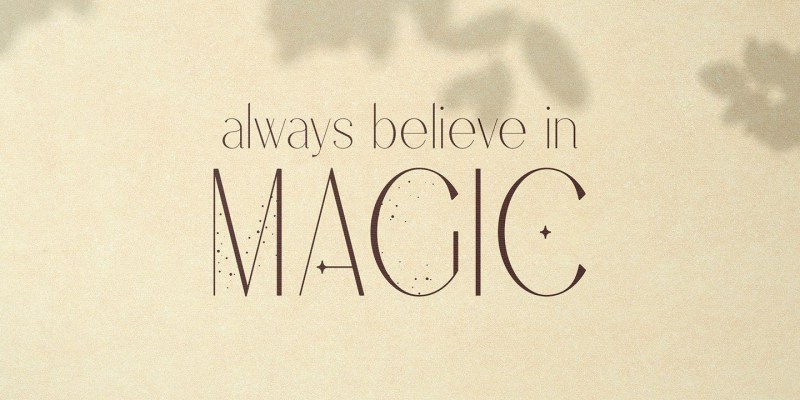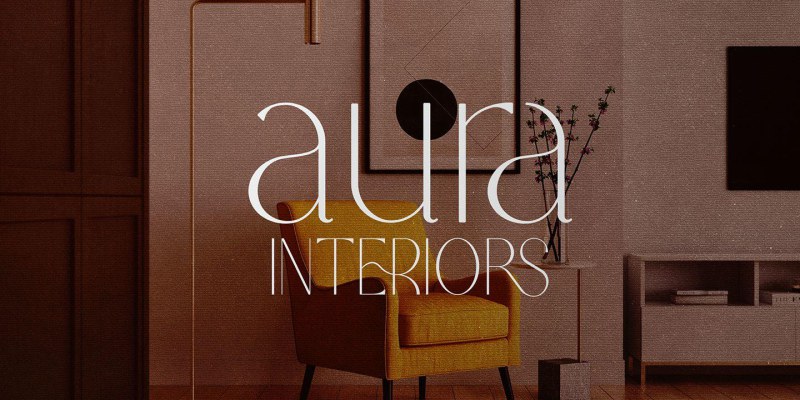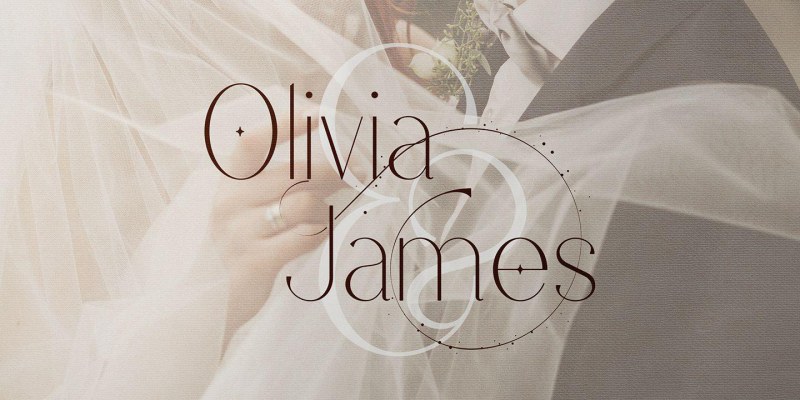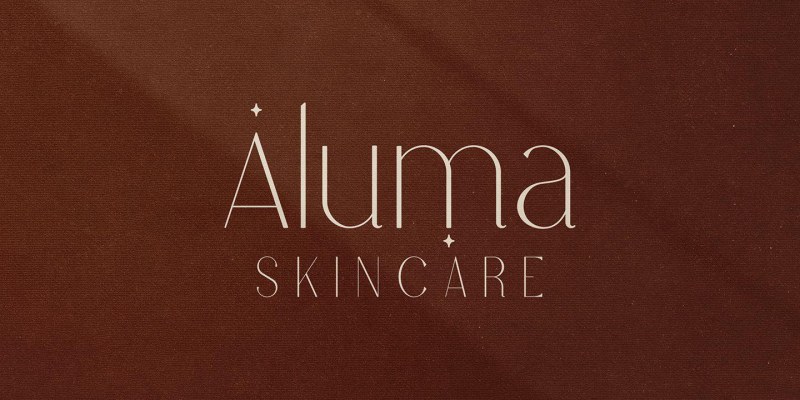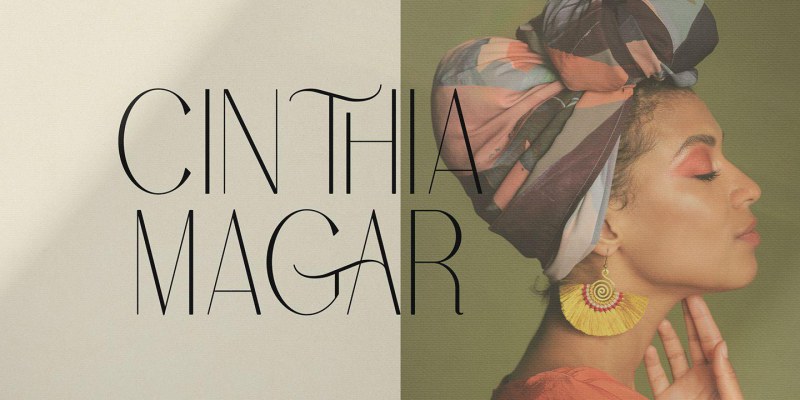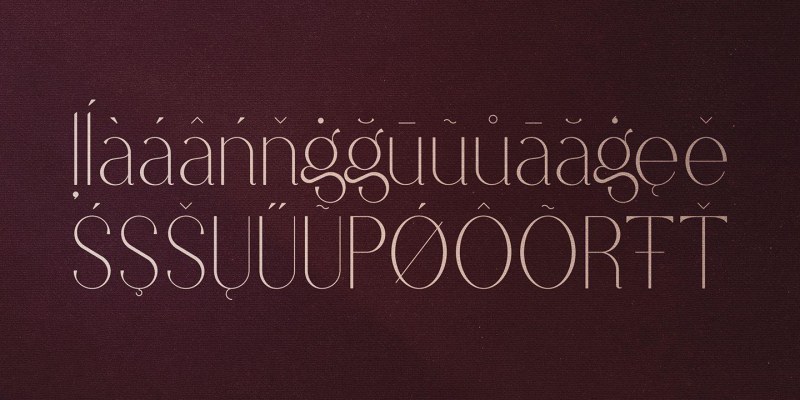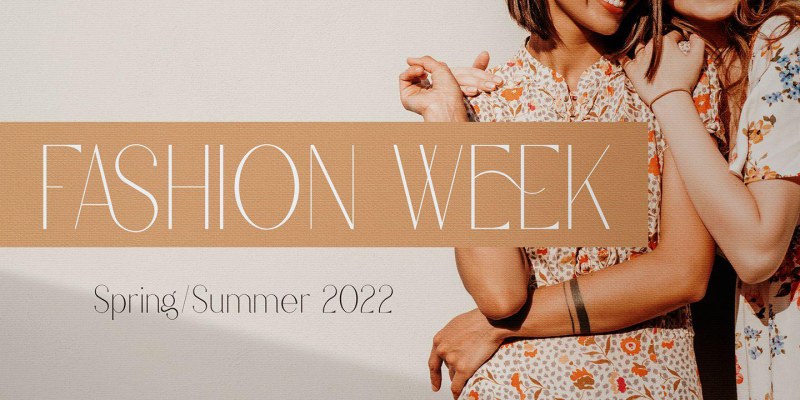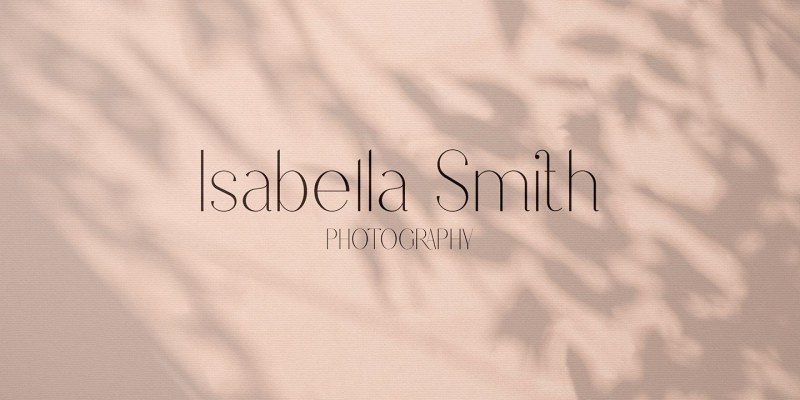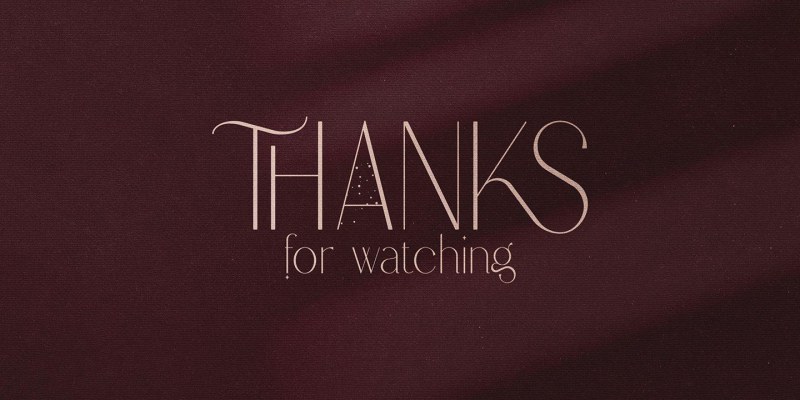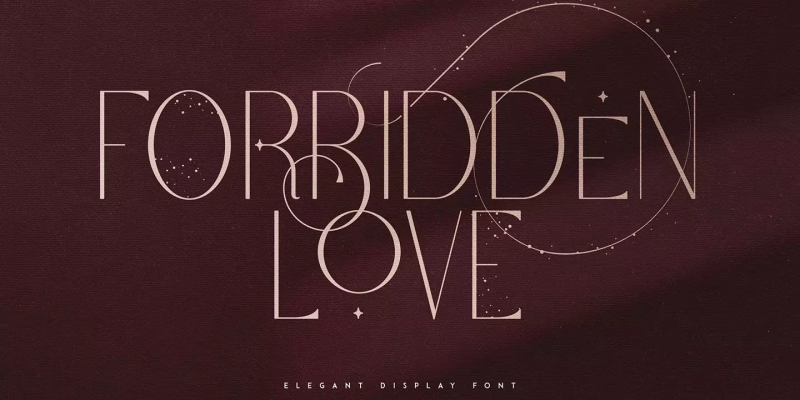
Forbidden Love Font
Introducing Forbidden Love – Display font | Latin & Cyrillic. Forbidden Love is stylish and creative font loaded with alternate and ligature glyphs, 95 languages support…
Introducing Forbidden Love – Display font | Latin & Cyrillic. Forbidden Love is stylish and creative font loaded with alternate and ligature glyphs, 95 languages support to make you typography truly unique!
Where Forbidden Love Font works best
Forbidden Love Font is built for size: event posters, hero headlines and billboard-style layouts.
High contrast display type like Forbidden Love Font reads instantly in thumbnails and motion graphics.
What is Forbidden Love Font good for?